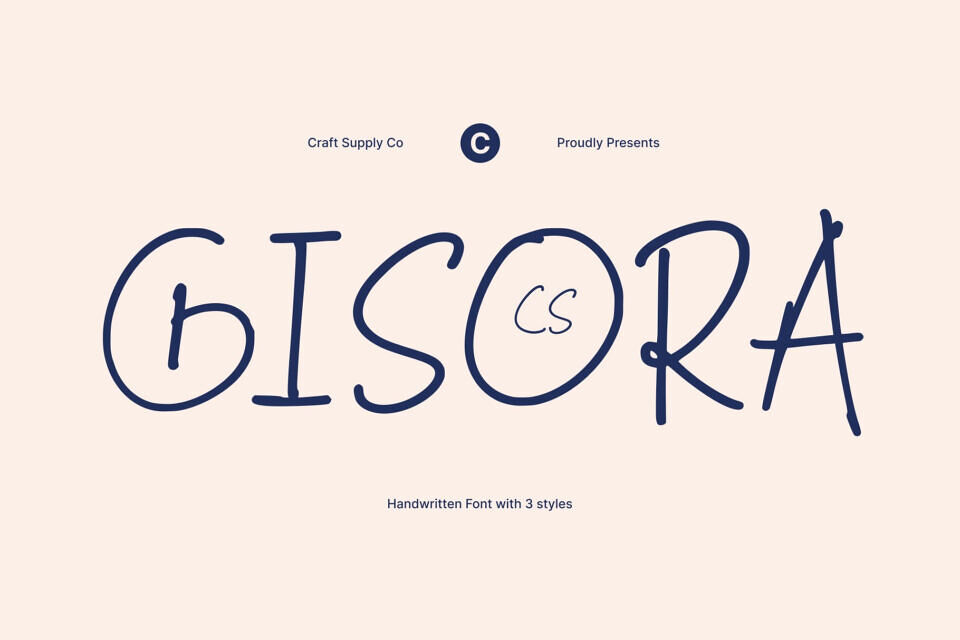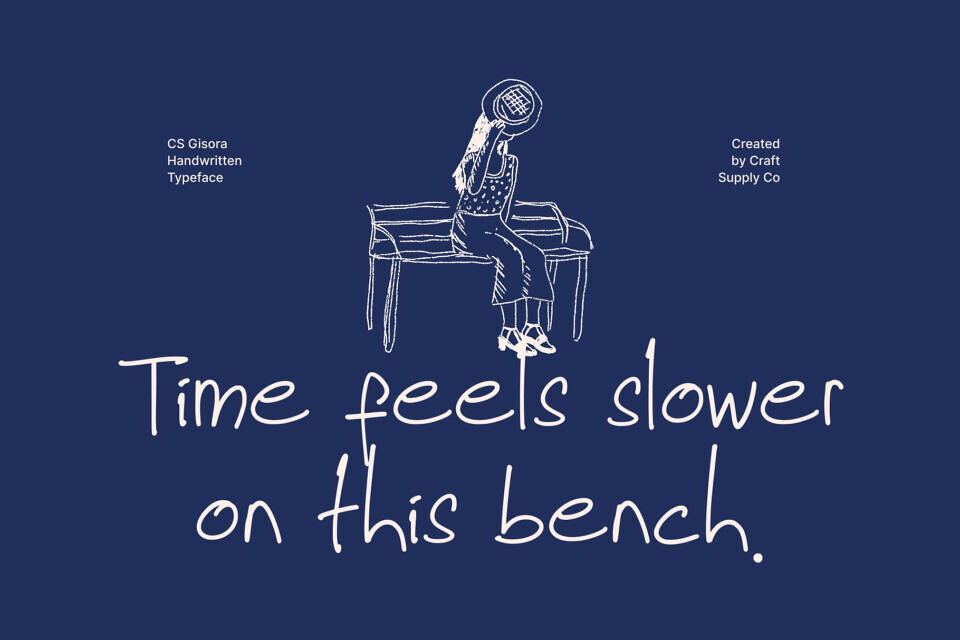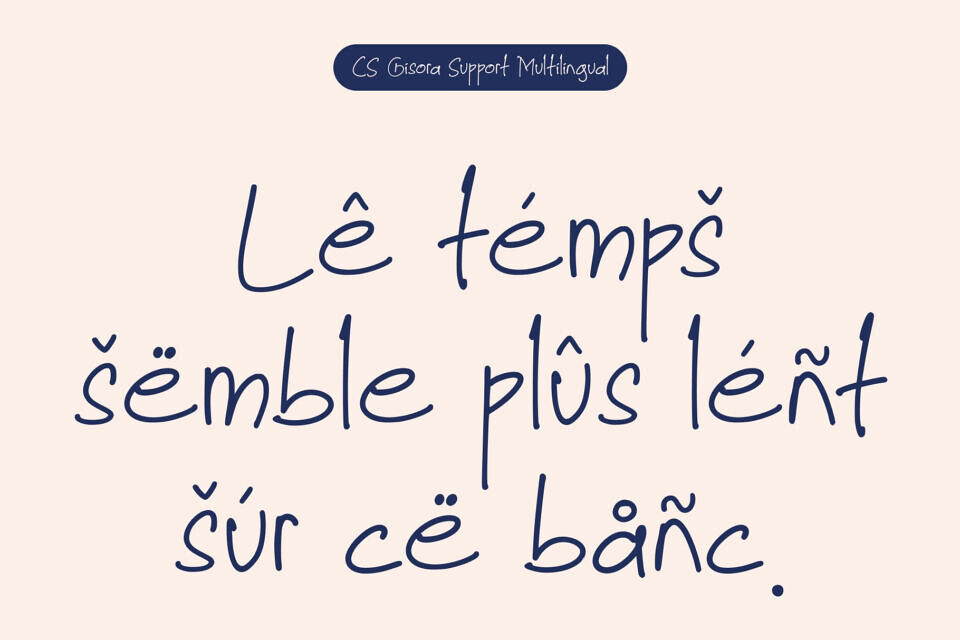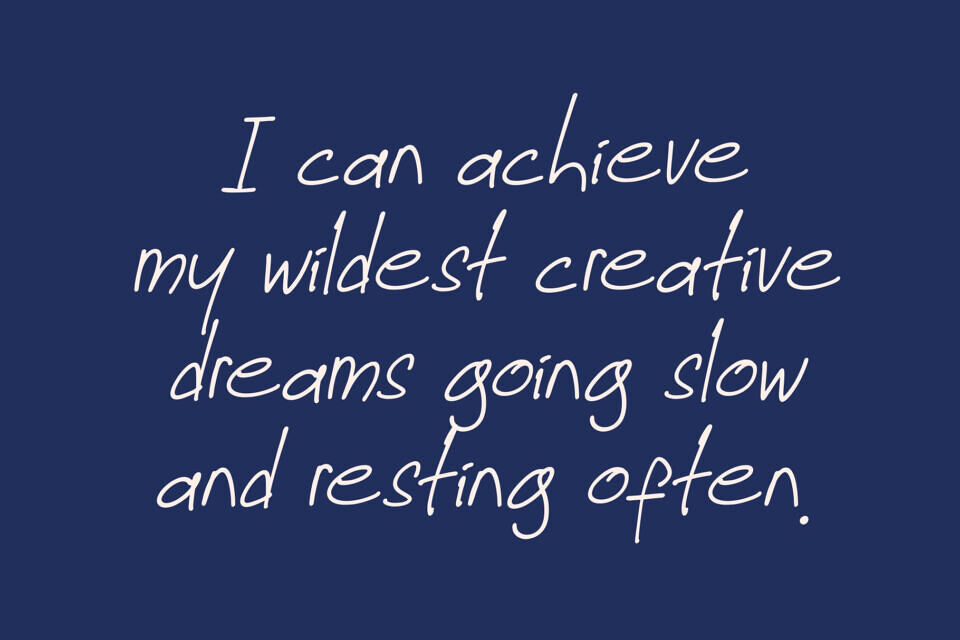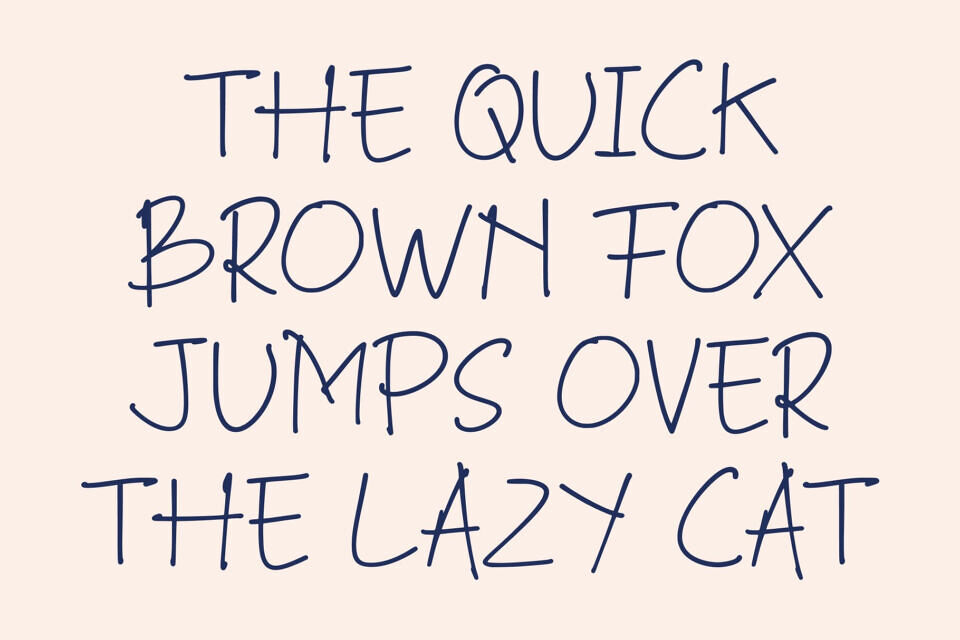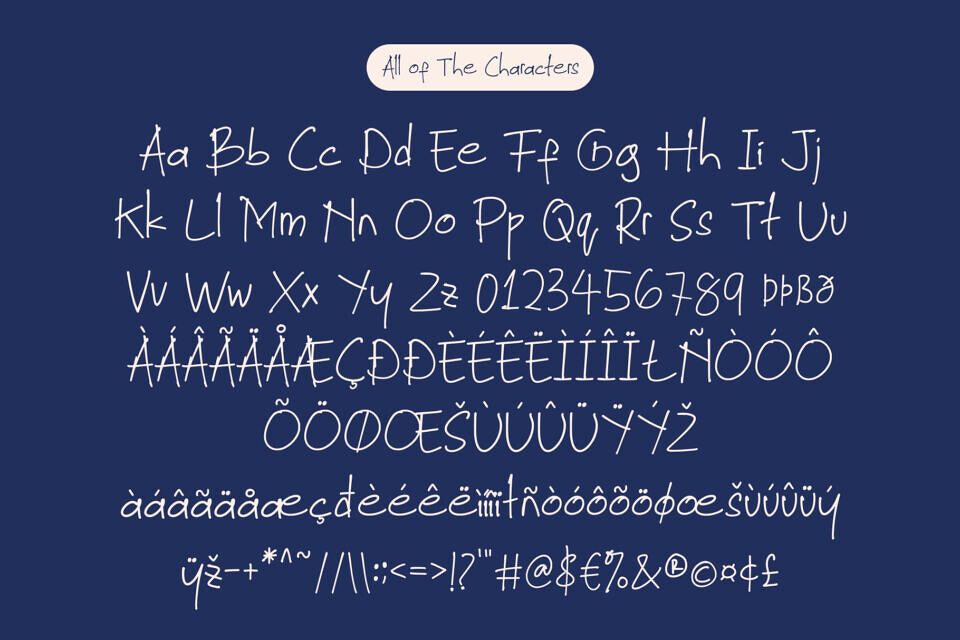
Gisora is a handwriting-inspired font designed to capture the natural flow and warmth of real pen strokes. Its authentic style brings personality and character to any design, combining modern aesthetics with stylistic elegance for a truly engaging typographic experience.
Each character in this font is crafted to feel lively and personal. The fluid strokes and balanced proportions create a sense of movement and rhythm, making your text feel approachable and dynamic. This expressive quality adds warmth and friendliness, perfect for projects that need a personal touch.